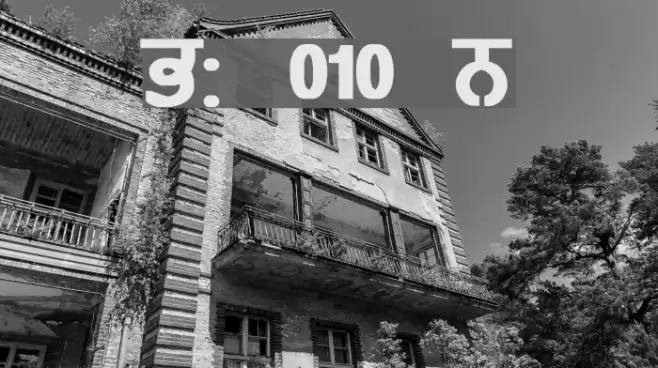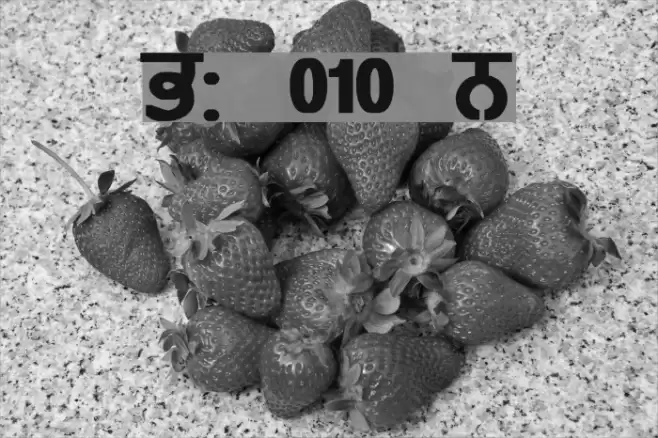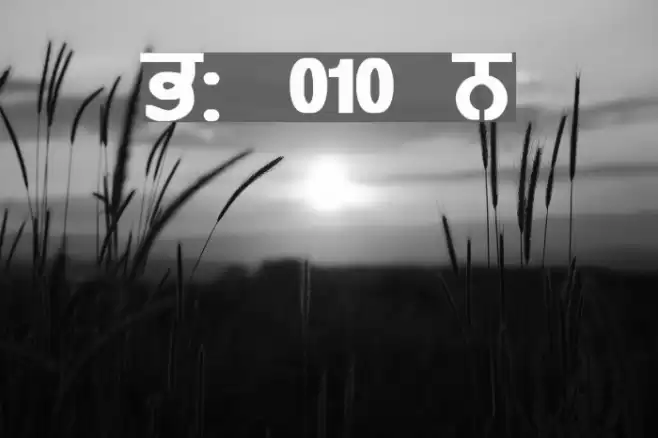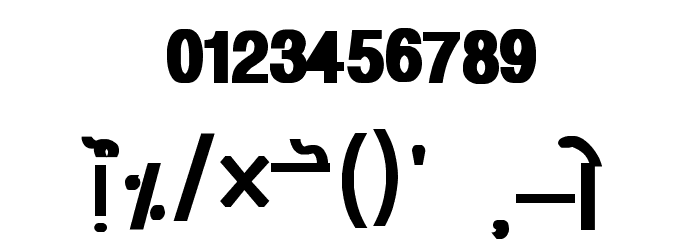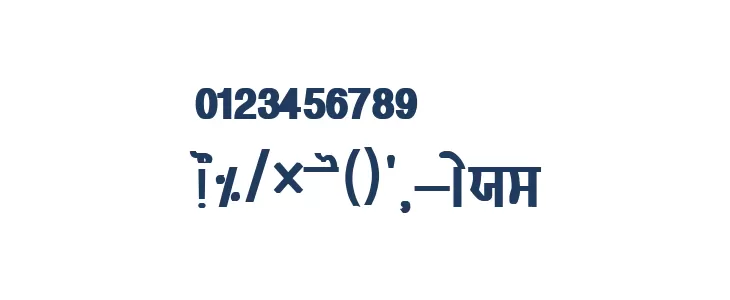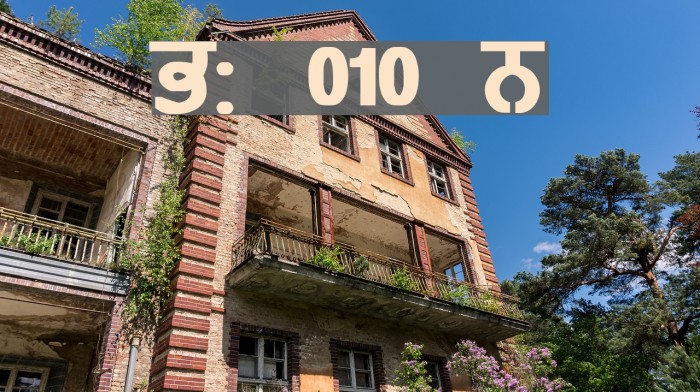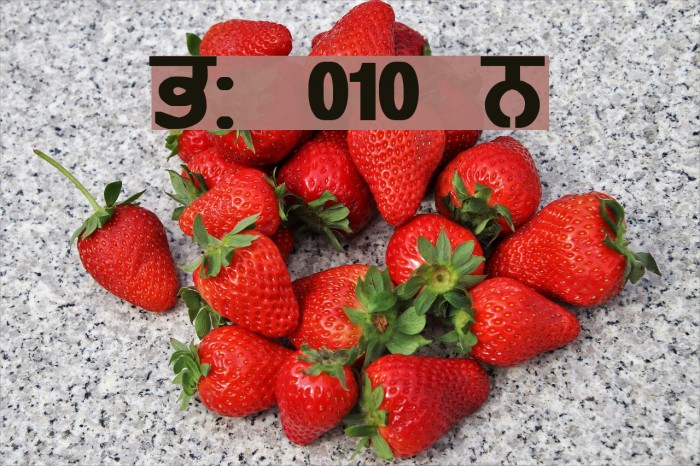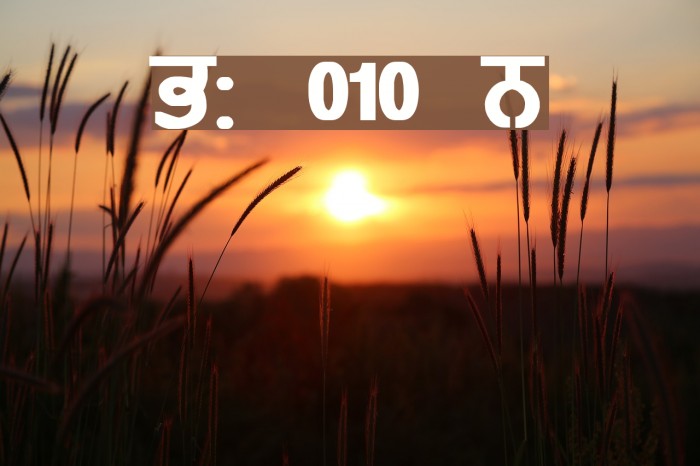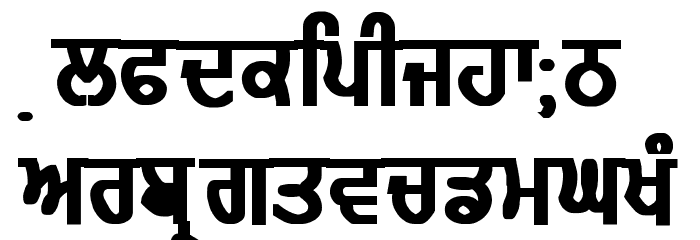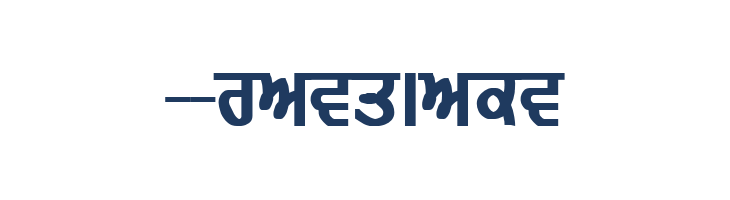
GurmukhiLys 010 Bold Font
GurmukhiLys 010 Bold Description
This font features a bold and striking appearance with a strong presence, making it ideal for attention-grabbing headlines and impactful designs. The characters are crafted with a high level of detail, showcasing a traditional Gurmukhi script style. The strokes are thick and consistent, providing a sense of stability and strength. The numerals are clear and well-defined, complementing the overall boldness of the font. Special characters are included, maintaining the same robust style, ensuring versatility in various design contexts.
A bold and striking Gurmukhi script font with thick, consistent strokes from Asian fonts.
- Proposed Projects: Ideal for headlines, posters, signage, and any project requiring a strong visual impact.
- Overall Style: Traditional
- Use Case: Headlines, Posters, Signage